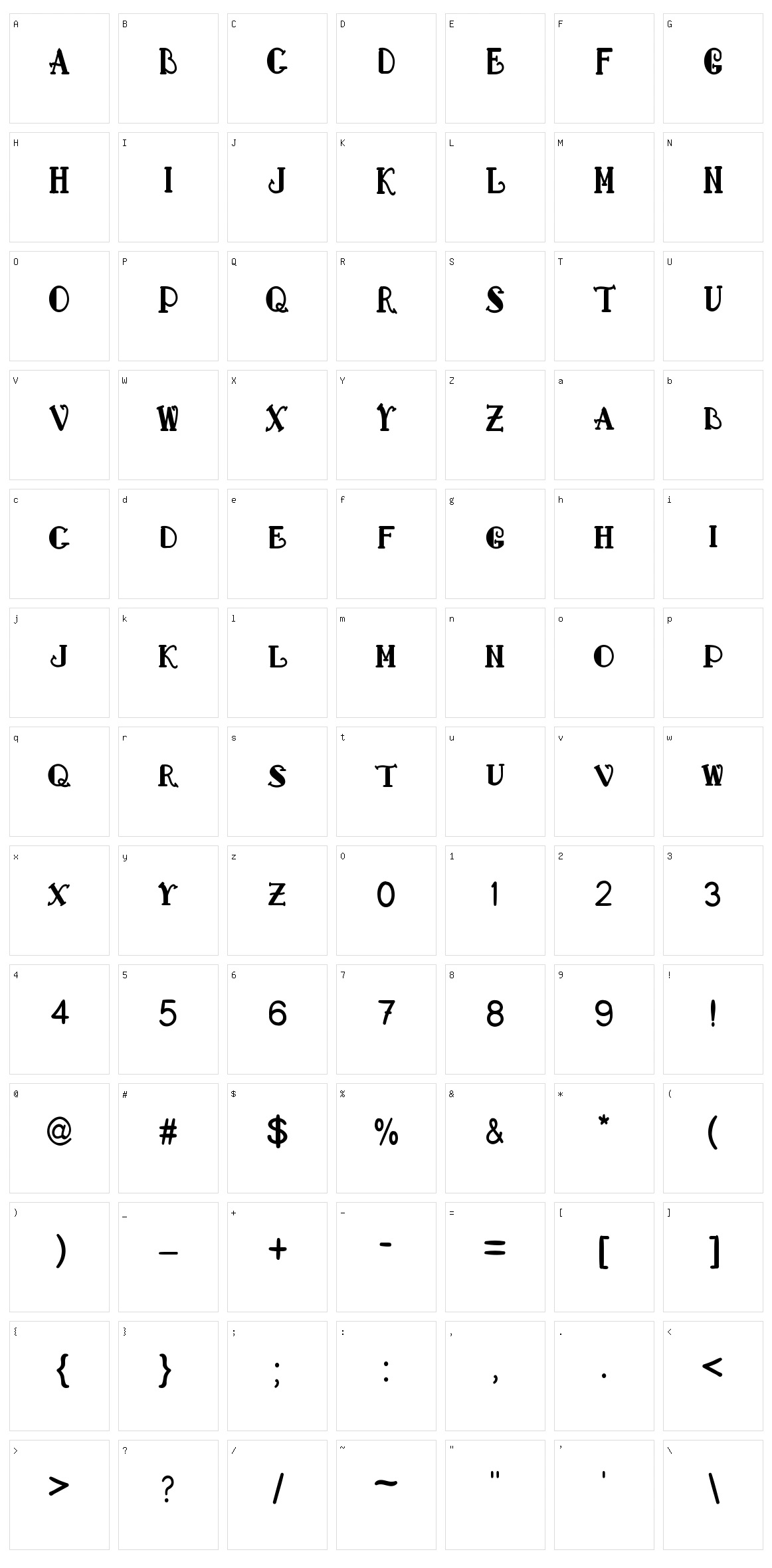
The free font Whallmark Serif is carefully designed by erik5541, showcasing a thoughtful balance of creativity and usability and falls under the Retro font style. When you download the ZIP file, it contains only 24.02 KB of font files, making it lightweight and quick to download. Please review the license details below to understand permitted usage and distribution rights. If license information is not available, we recommend using this font for personal projects only or contacting the author directly for commercial usage permissions.